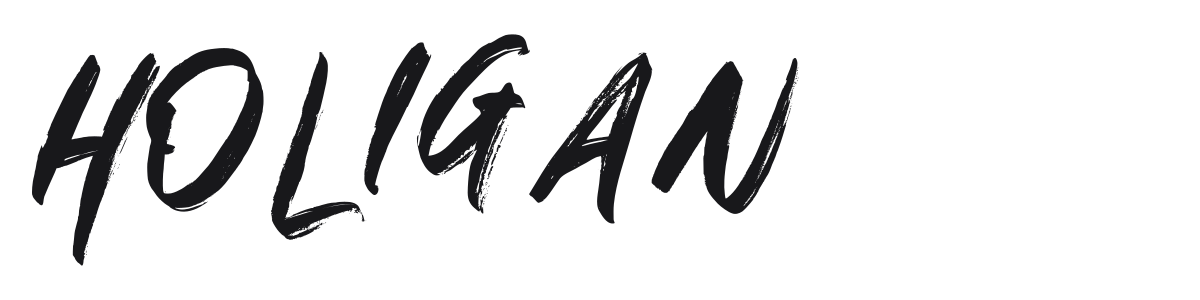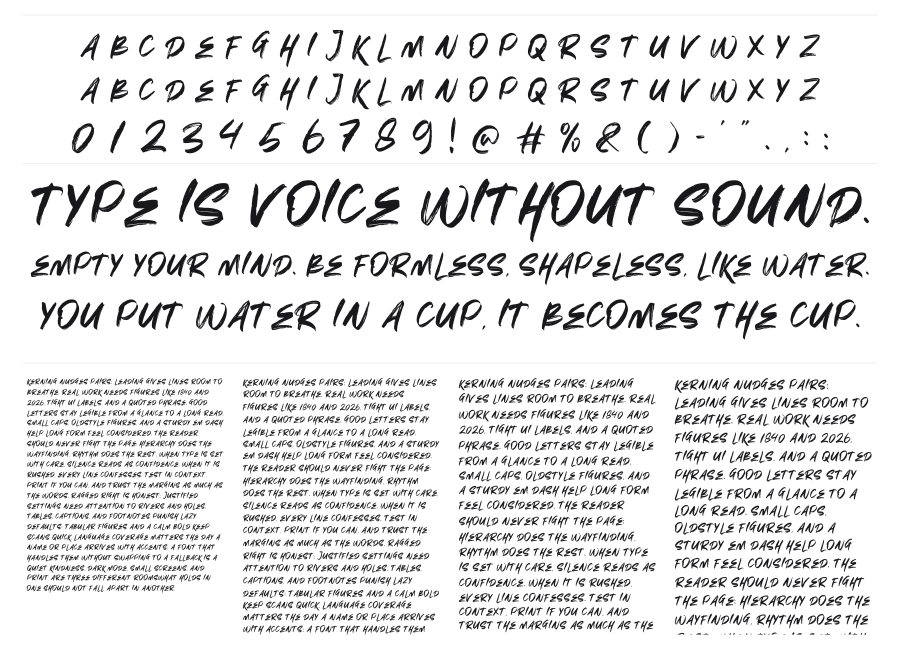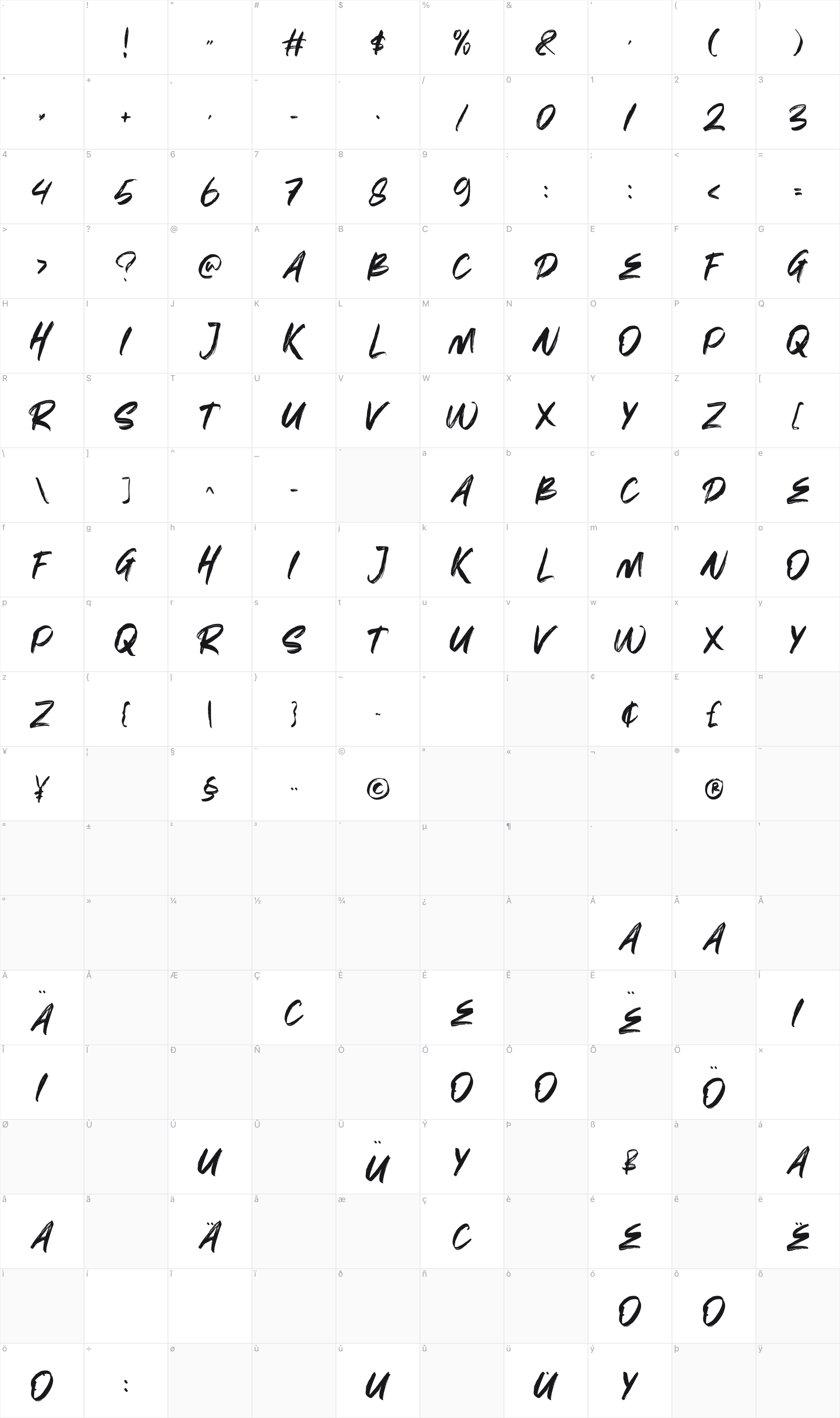
Holigan
Holigan is a bold brush script with aggressively textured strokes that look dragged across a rough surface at speed. The fraying edges and uneven ink distribution give it a genuinely handmade quality that polished brush fonts rarely achieve. Strong on posters, apparel, and anywhere the design needs attitude.